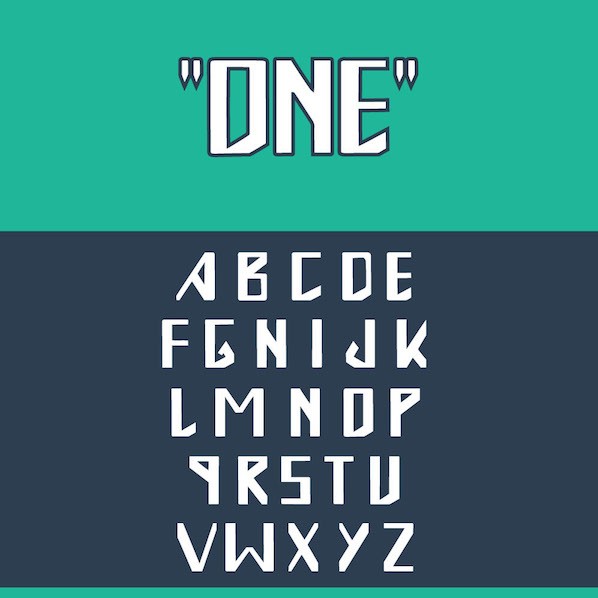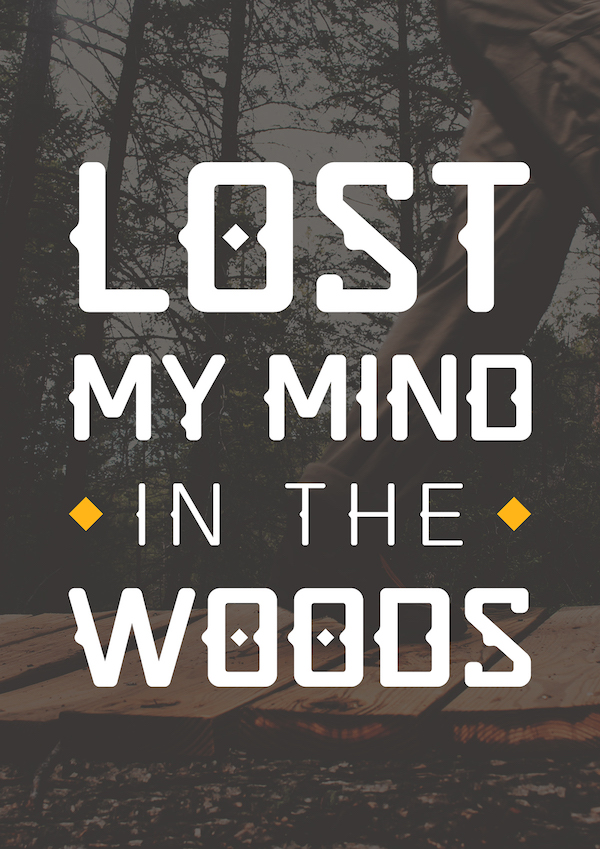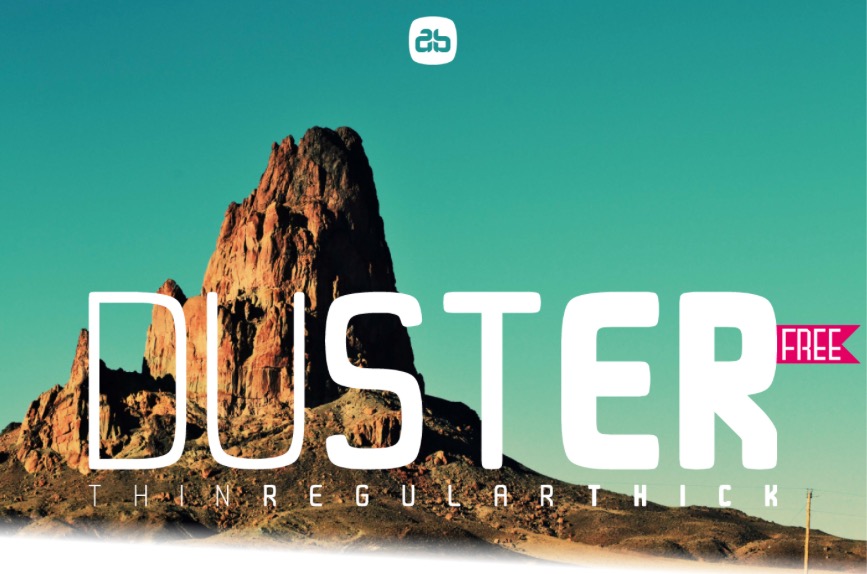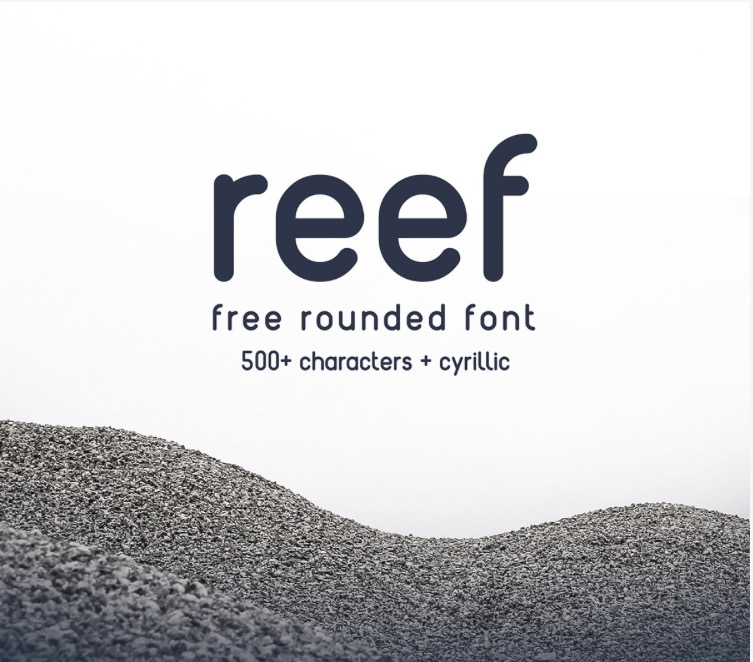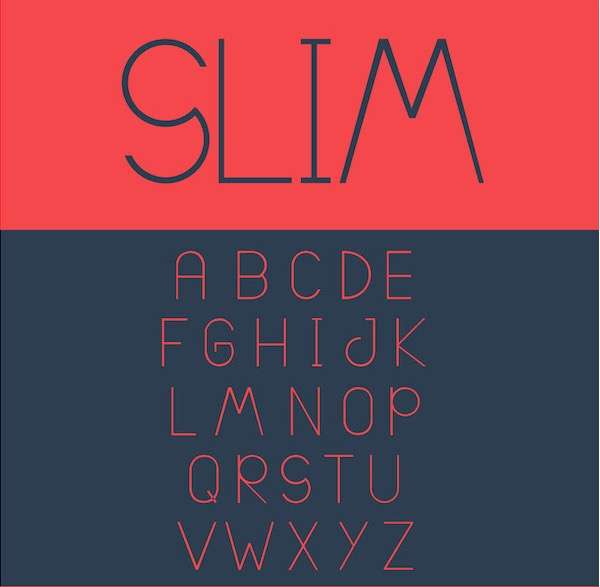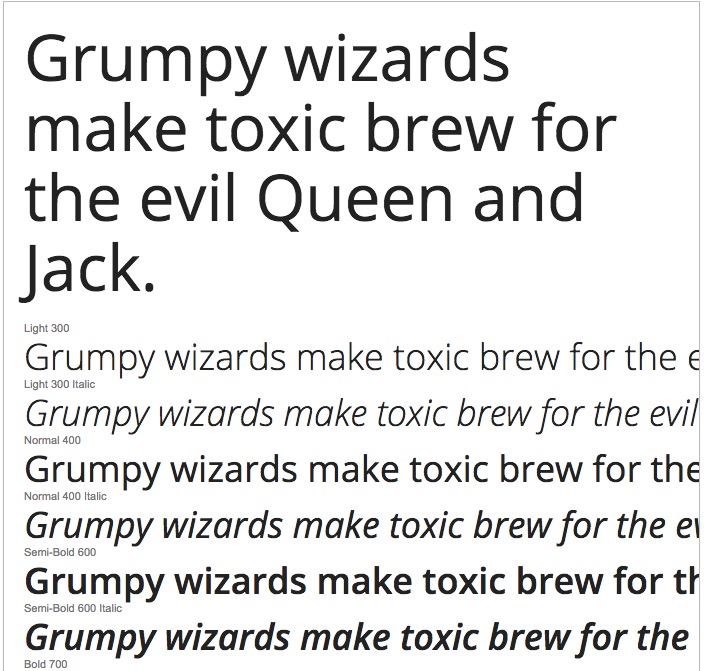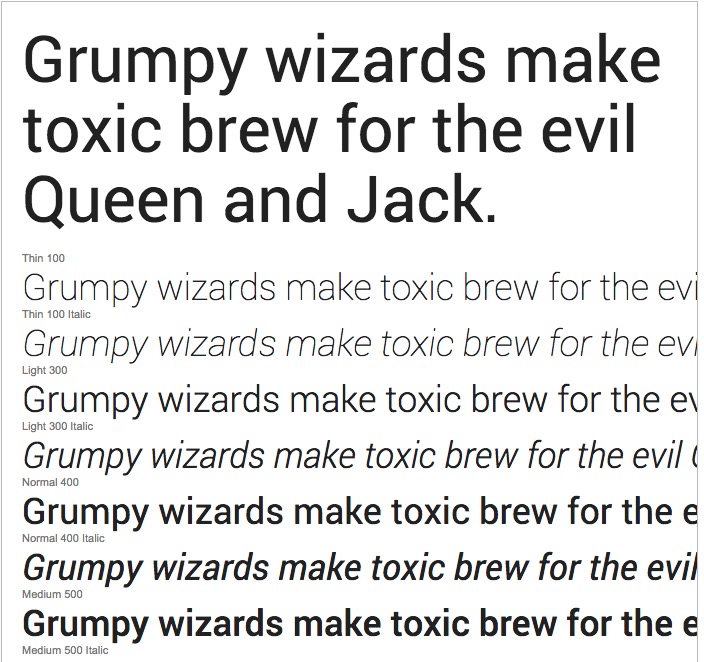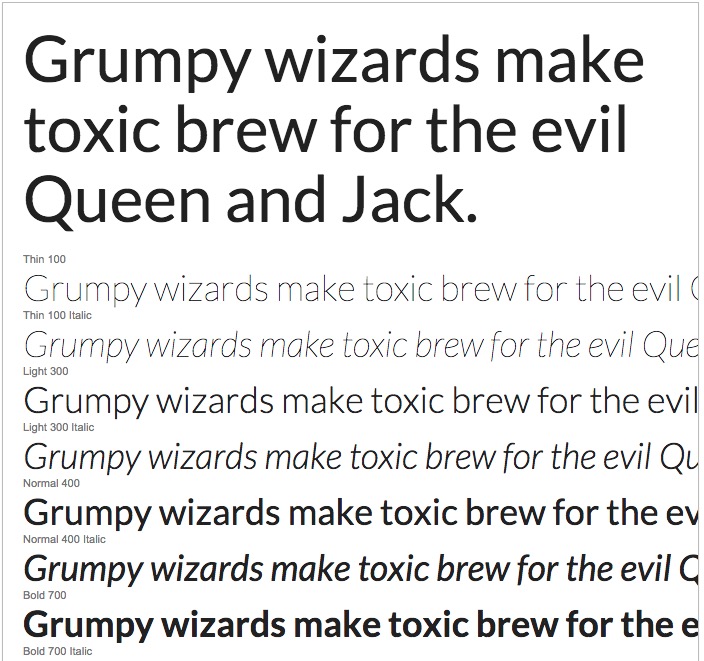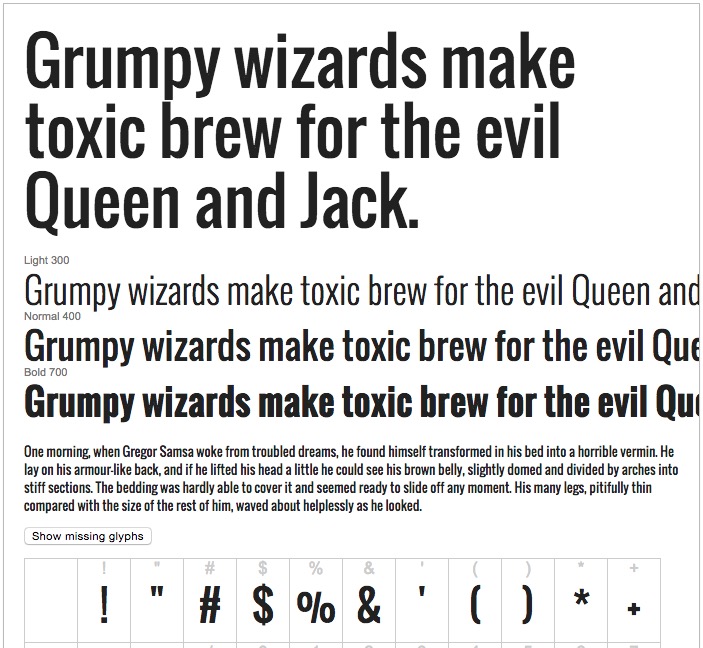
50 Of the Best Free Fonts in 2015
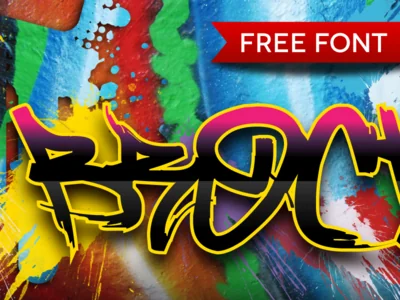
For user-friendly and readable formats, fonts can make a lot of difference below you will find some of best new and fresh free fonts 2015.
Few years back, whenever a font was to be used, we had to ensure if that font would be available on recipient computer or not, but now you don't have to use those age-old standard font types.
Use a fancy font for attractive typography and beautiful effects like font shadows.
Free Fonts 2015
There are some great free fonts in 2015 that made this list and we will be adding more in upcoming weeks and months. So, free font lovers should add this page to their bookmarks. Here we also showcase the best collection of free Google fonts, so let's grab all those goodies now.Break | Free Typeface
Shumi
Order Typeface | Free Font
Phage
Lombok Typeface
Open Sans
PaymentFont (icon font)
Roboto
Slim | Free Typeface
Lato
Iconic (icon font)
DownloadOswald
Reef
MFG Labs
DownloadQuirko – Free Typeface
Font Awesome
Duster
A beautiful rounded typeface with three weights designed by Alex Banks. More info | Download
Captain Icon
DownloadOne | Free Typeface
Medical Icons
DownloadArca Majora
More info | DownloadMono Social
DownloadFold free font
DownloadEntypo (Free Icon font)
DownloadGinkgo: a Strong Tender Font
DownloadIonicons
DownloadLeParisien Font
Pony Runes Font.
DownloadBaron Classic San Serif Free font
Zona Pro
DownloadGenji: a Handwriting-Inspired Geometric Font
DownloadPixel Reto — free font
DownloadHAENDE Font v.1.3
DownloadFree Modern Gaspipe
Choplin Free Font
Downloadwiggle font
DownloadLEON FREE FONT BY MARCELO REIS MELO
HAENDE Font v.1
DownloadMulticolor Free Font
Uni Sans Free
DownloadBorn2bSporty: a Massive Pixel Font
DownloadMODEKA - FREE FONT
Modern Ancient
DownloadSprite Graffiti Font
DownloadIce Cube Font
DownloadBrock165 Regular
Drebeden Font Free Download
Intro Condensed Free
DownloadFANTASTICA Free Font
DownloadNoni ~ Sweet Handwritten Free Font
Skatekey Font Free Download
Disclaimer free font
DownloadZodiaclaw ( Free Font )
Metropolis 1920 Free Font Download